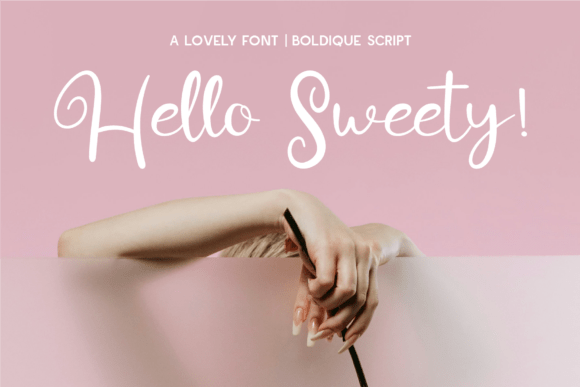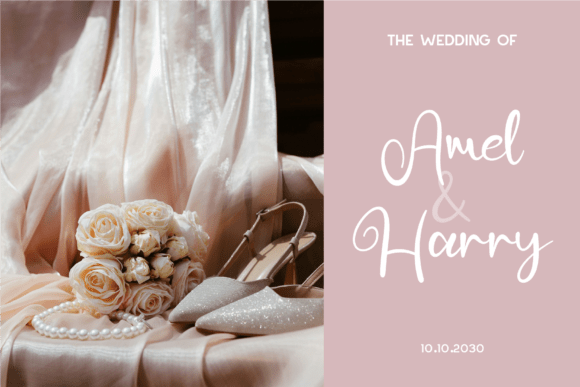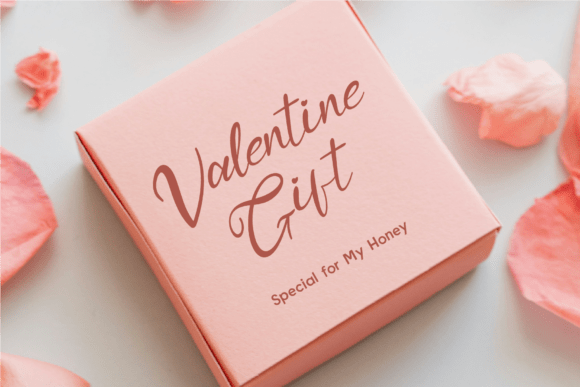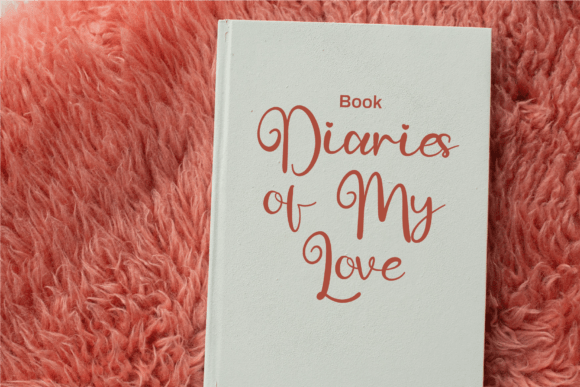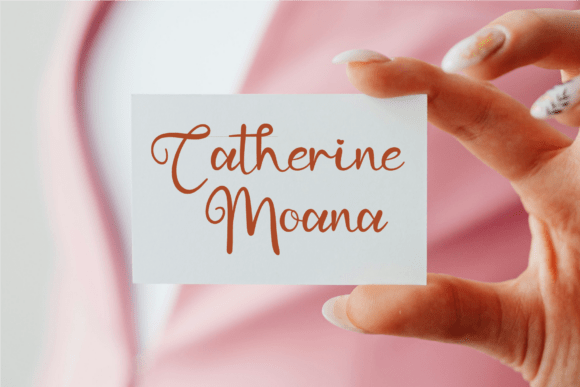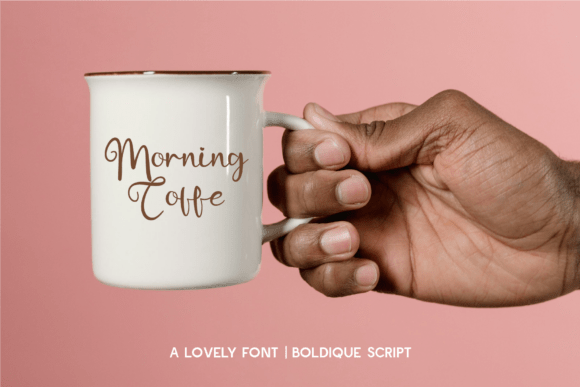
**Boldique Script** – A Lovely and Playful Script Font
Elevate your designs with Boldique Script, a charming and expressive script font that radiates elegance and warmth. With its fluid, handcrafted strokes and delightful heart-shaped details, this font brings a touch of romance and personality to any project. Designed to be versatile and visually captivating, Boldique Script seamlessly blends a modern calligraphic style with a casual yet refined aesthetic.
The Characteristics of Boldique Script
The smooth curves, varying stroke thickness, and well-balanced letterforms of Boldique Script make it perfect for a wide range of applications, including branding, wedding stationery, social media graphics, product packaging, and more. This font’s unique characteristics include:
- Elegant & Playful: A perfect blend of sophistication and charm with subtle decorative accents.
- Natural Flow: Handwritten-style strokes create an organic and inviting feel.
- Versatile Usage: Ideal for logos, invitations, quotes, greeting cards, and boutique branding.
- Easy to Use: Designed for seamless legibility while maintaining a stylish and artistic flair.
Why Choose Boldique Script?
There are many reasons why Boldique Script stands out from other script fonts. Here are a few:
- Unique and Eye-catching: The heart-shaped details and fluid strokes of Boldique Script make it a standout choice for designers looking to add a touch of personality to their work.
- Highly Versatile: Whether you’re working on a wedding invitation, a social media graphic, or a product label, Boldique Script adapts seamlessly to any design.
- Easy to Read: Despite its artistic and decorative nature, Boldique Script remains highly legible, making it suitable for both headlines and body text.
- Customizable: With its wide range of applications and adaptability, Boldique Script can be tailored to fit your specific design needs.
Applications of Boldique Script
Boldique Script is an incredibly versatile font that can be used in a variety of design projects. Here are some ideas to get you started:
- Wedding Stationery: Create beautiful wedding invitations, save-the-date cards, and wedding programs with Boldique Script.
- Branding and Logos: Use Boldique Script to add a touch of elegance and sophistication to your brand identity.
- Social Media Graphics: Elevate your social media presence with eye-catching graphics and quotes featuring Boldique Script.
- Product Packaging: Add a personal touch to your product labels and packaging with this charming script font.
- Greeting Cards and Invitations: Create custom greeting cards, invitations, and thank-you cards with Boldique Script.
Tips for Using Boldique Script
To get the most out of Boldique Script, here are some tips to keep in mind:
- Pair with Other Fonts: Combine Boldique Script with complementary fonts to create visual interest and hierarchy in your designs.
- Experiment with Colors: Try out different color schemes and combinations to find the perfect match for your design.
- Pay Attention to Spacing: Make sure to adjust the spacing and kerning of your text to ensure optimal legibility and aesthetics.
Boldique Script is a lovely and playful script font that can elevate your designs and add a touch of romance and personality. With its elegant and refined aesthetic, versatility, and ease of use, this font is perfect for designers and crafters looking to create beautiful and eye-catching designs. Whether you’re working on a wedding stationery, branding project, or social media graphic, Boldique Script is sure to impress.